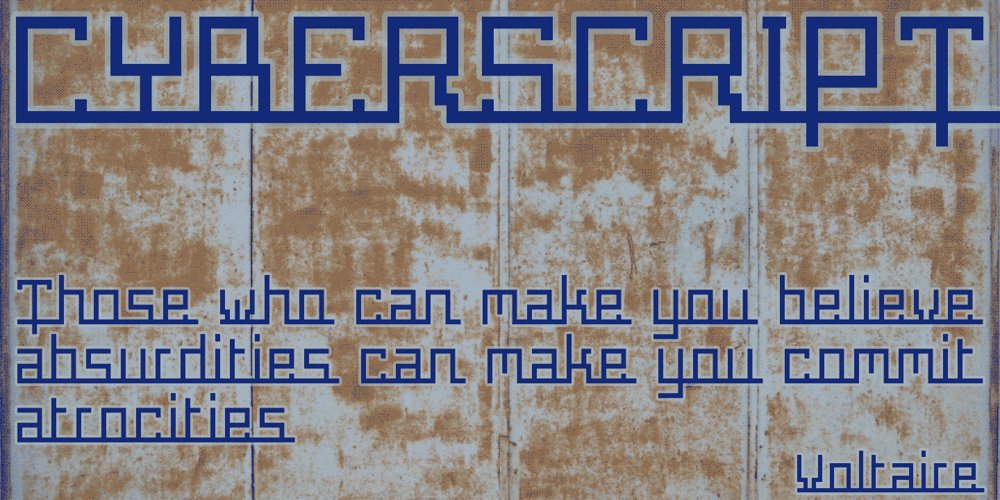
CyberScript Font Family was designed by Keith Bates and published by K-Type. CyberScript contains 2 styles and family package options. CyberScript is a full font loosely based on some lowercase letters made out of metallic security tape by Bond and Coyne Associates, and featured in Charlotte Rivers’ book Type Specific. A playful Shimmer version is also included.